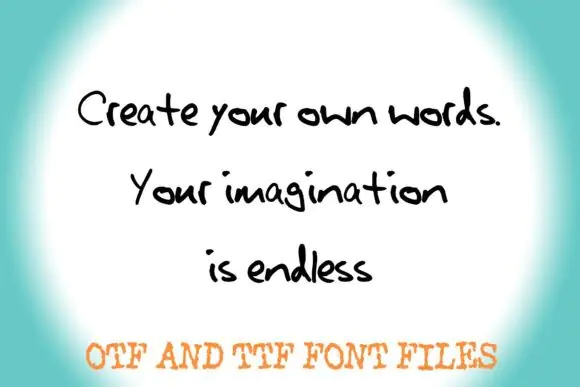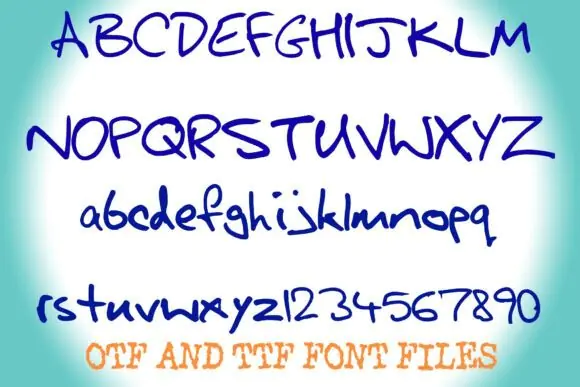
Create warm, personal, and realistic handwritten designs with Boyfriends Handwriting Font, an authentic handwriting-style typeface based on real pen-on-paper strokes. This font is designed to feel sincere, natural, and human, giving your projects a relaxed handwritten look that balances casual imperfection with strong readability.
Boyfriends Handwriting Font is perfect for creators who want their text to look less digital and more like a real handwritten note. Its natural curves, irregular strokes, and lived-in rhythm make it ideal for heartfelt quotes, digital journal pages, boutique branding, handmade product labels, custom cards, wedding signage, social media content, and personalized gifts.
Authentic, handwritten, real penmanship, casual, natural, sincere, relaxed, lived-in, perfectly imperfect, readable, human, warm, personal, journal-style, and heartfelt.